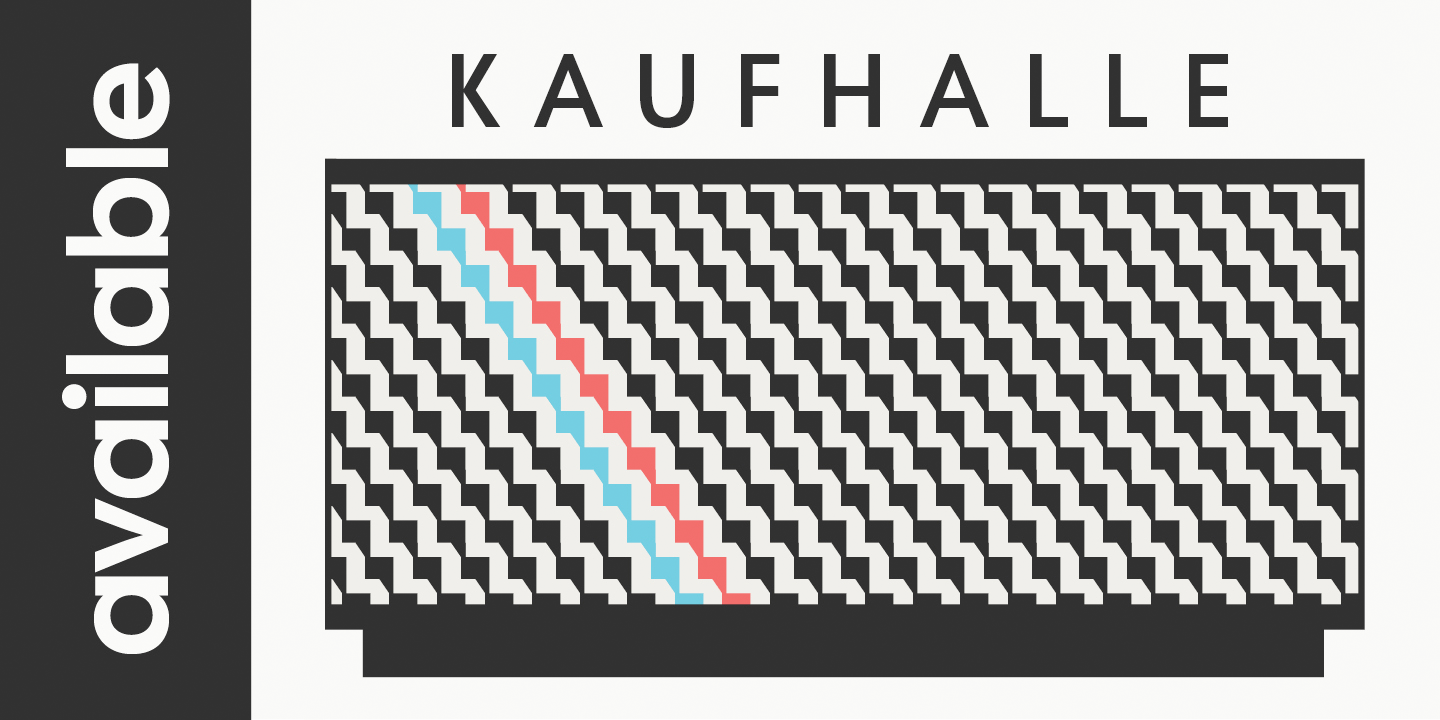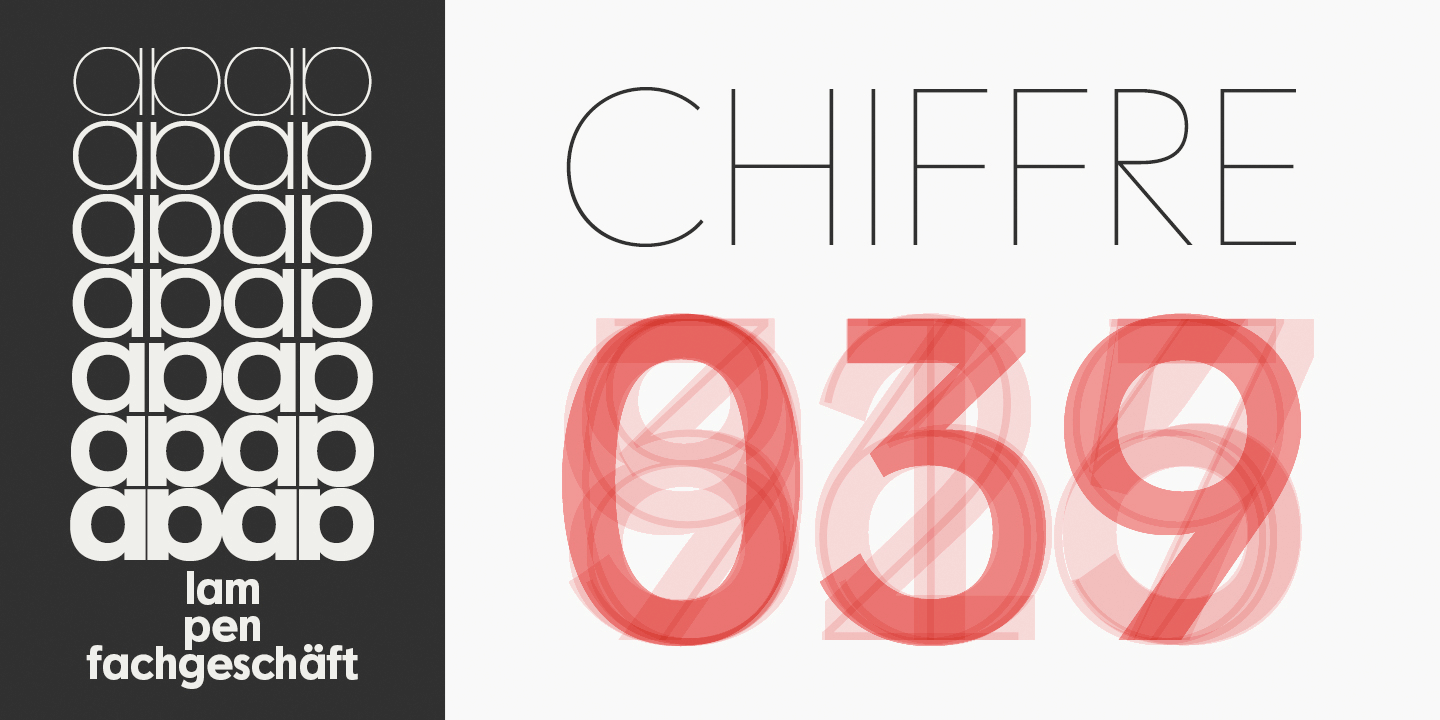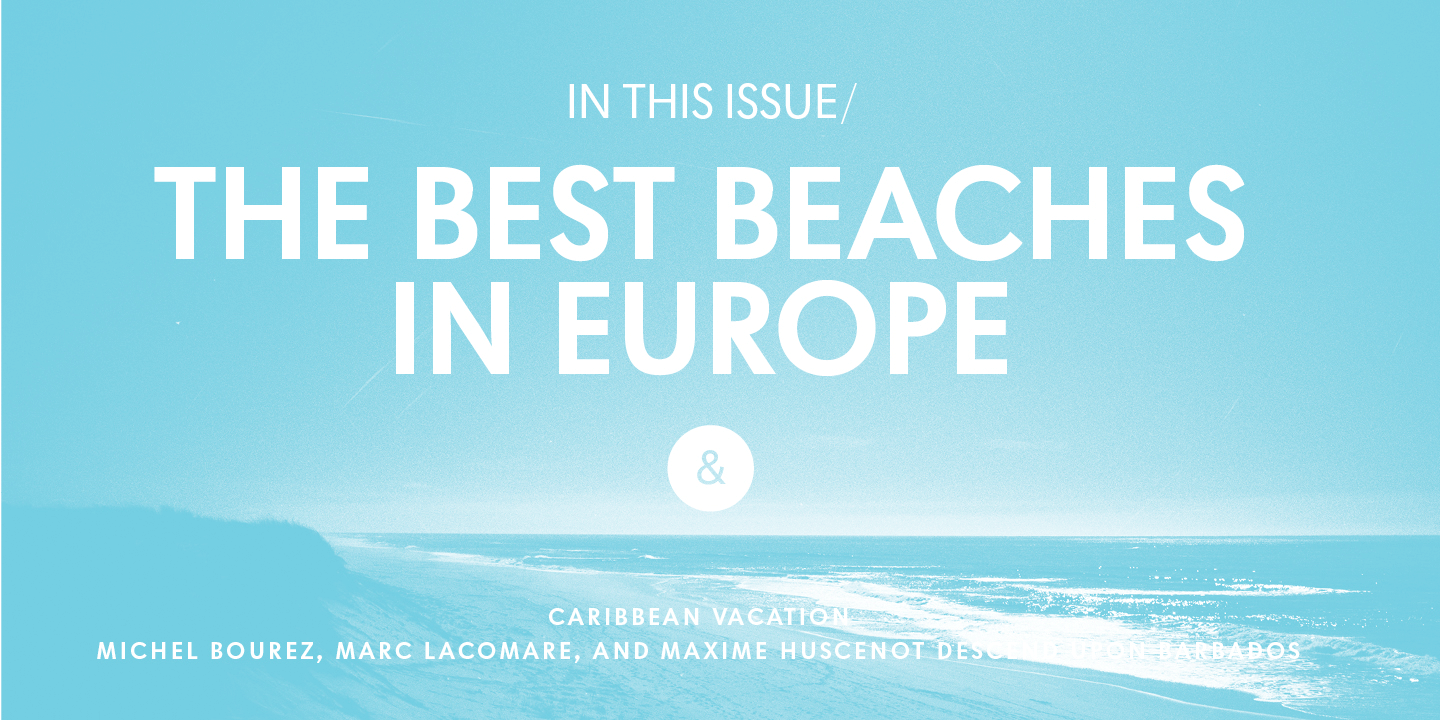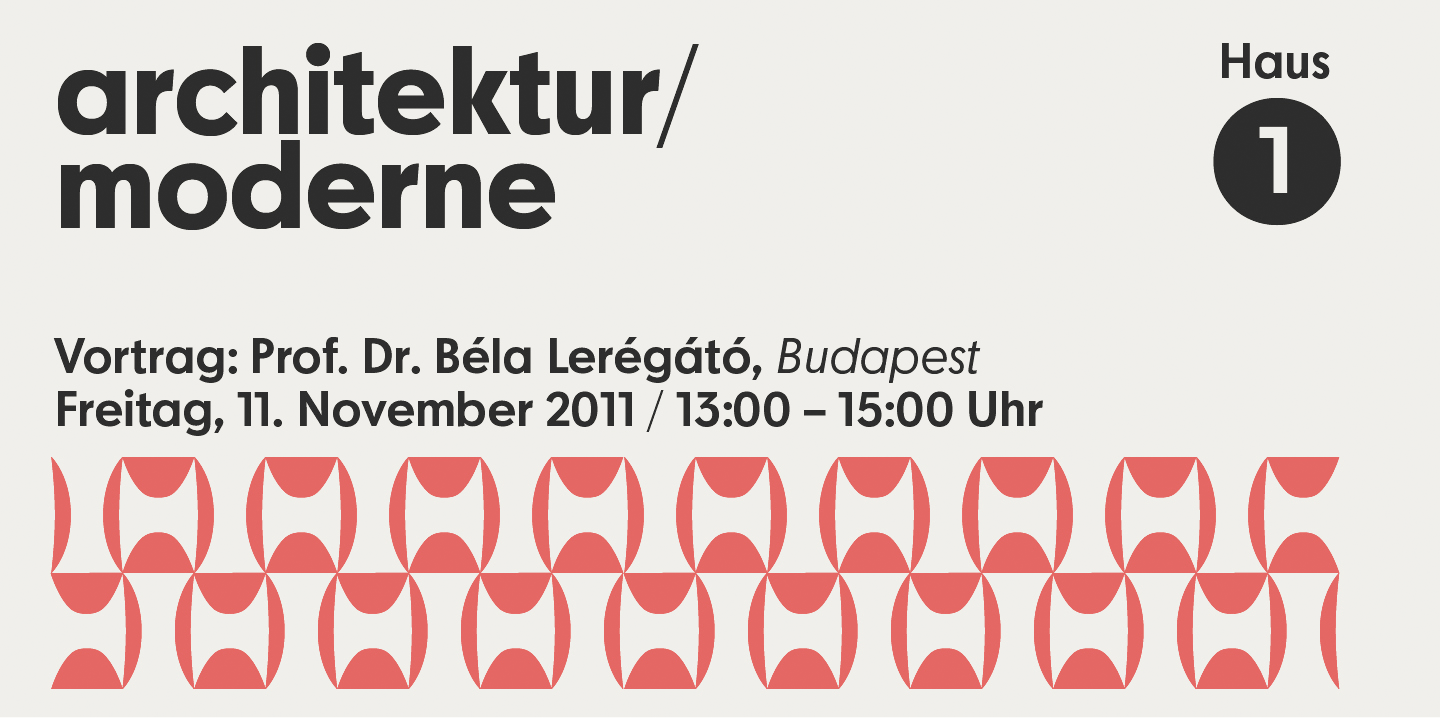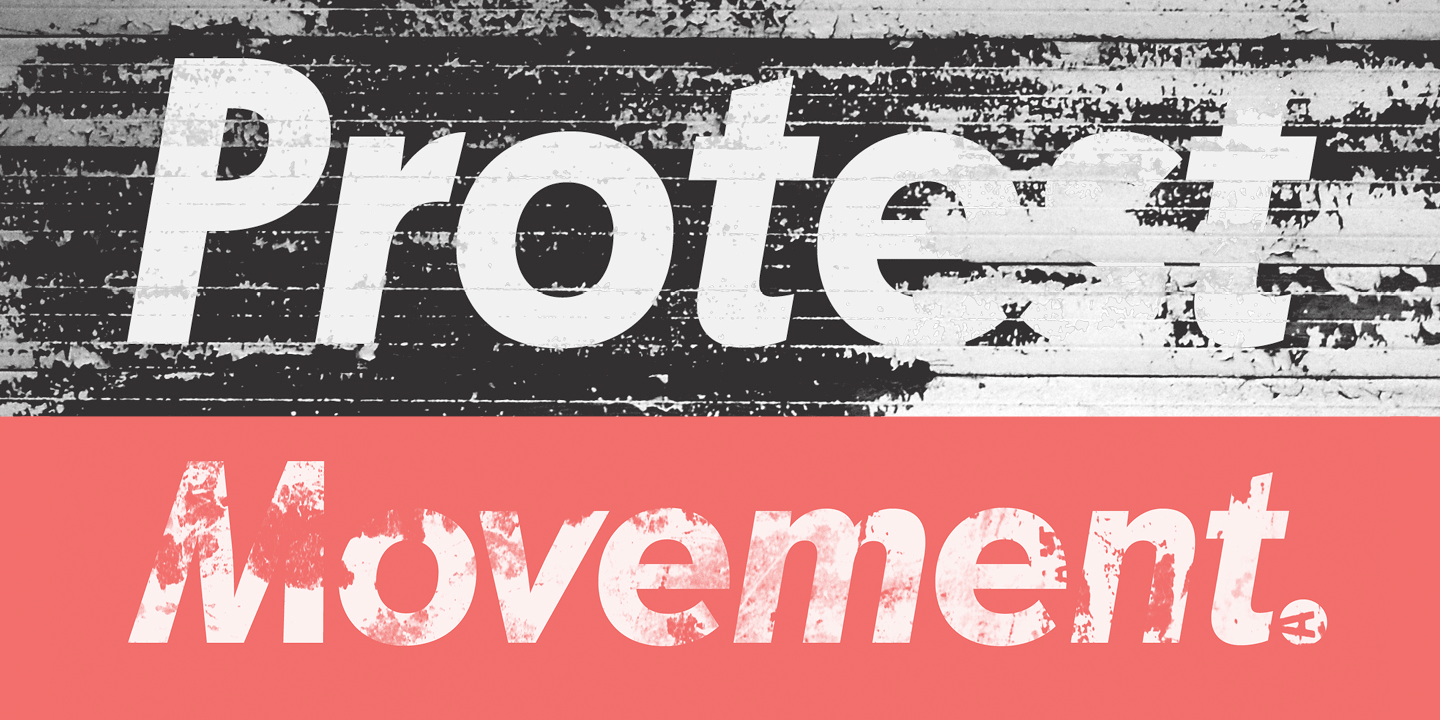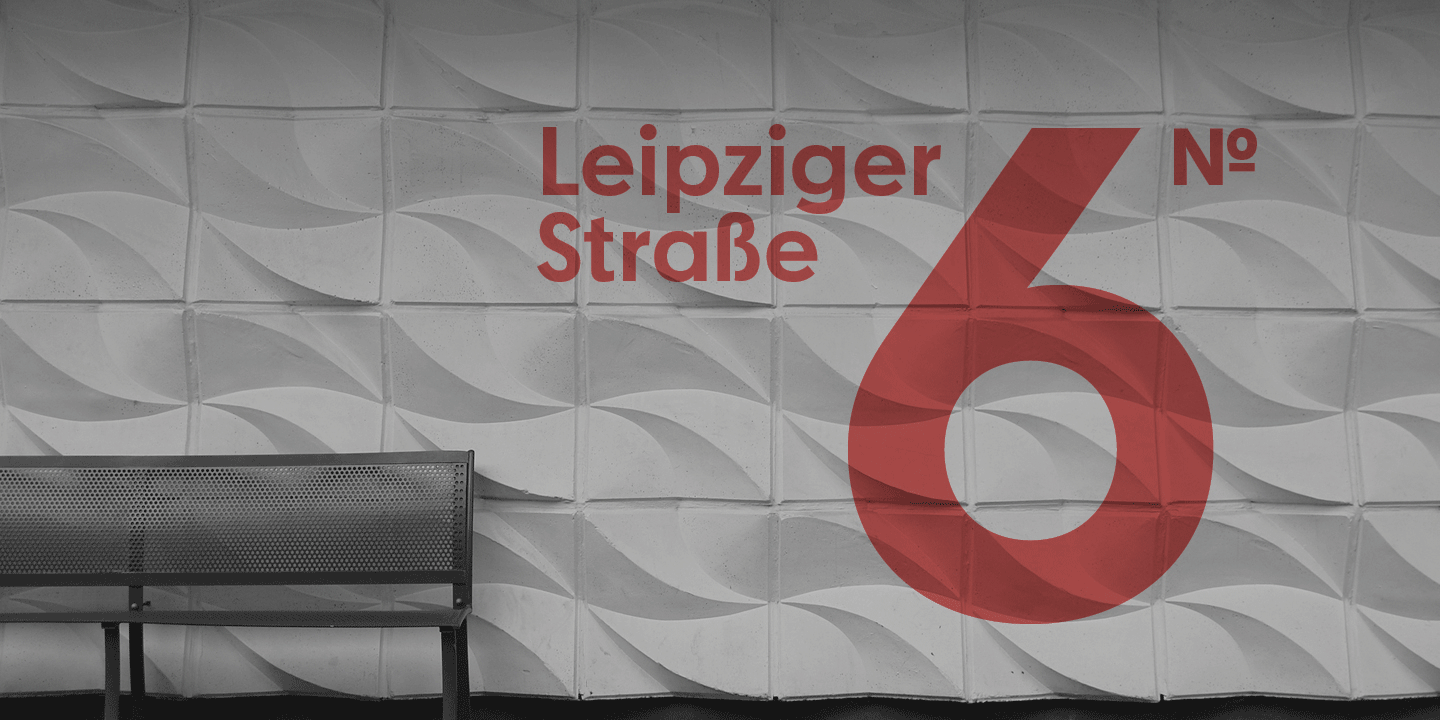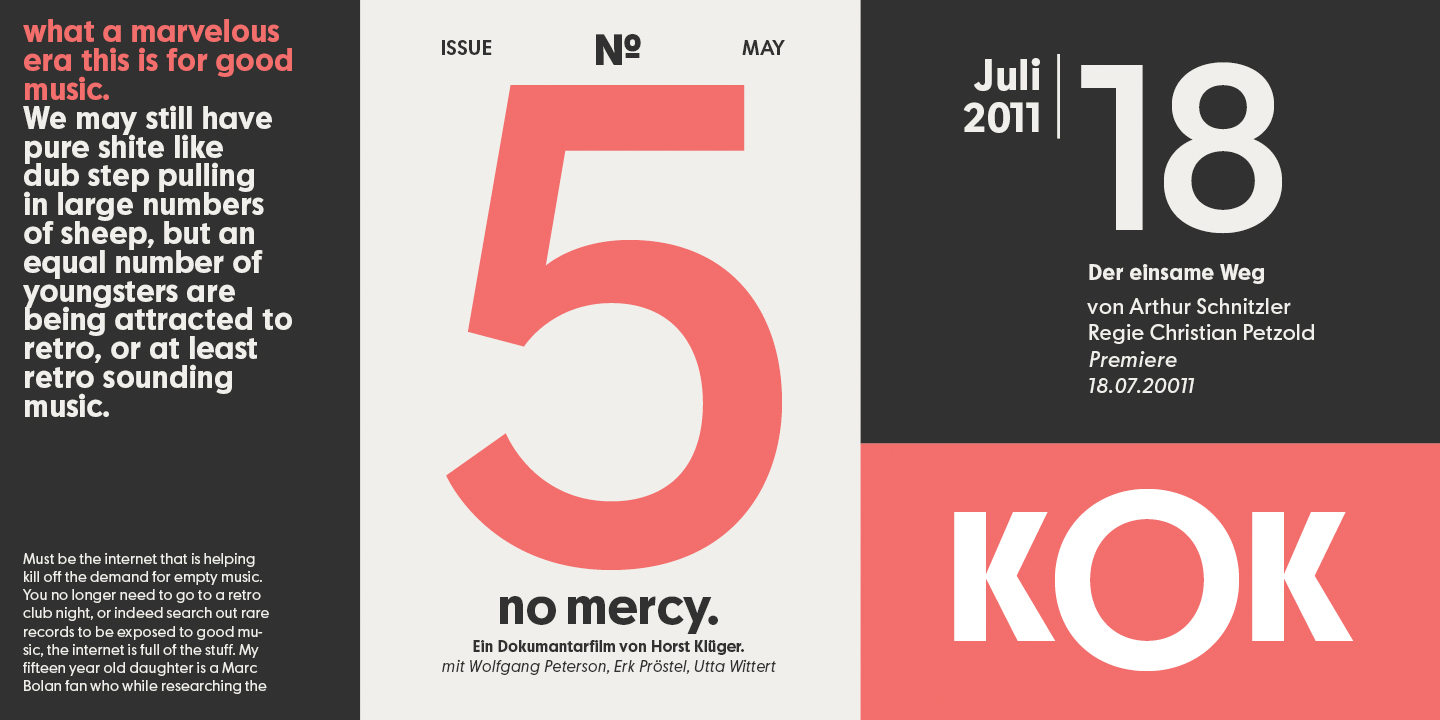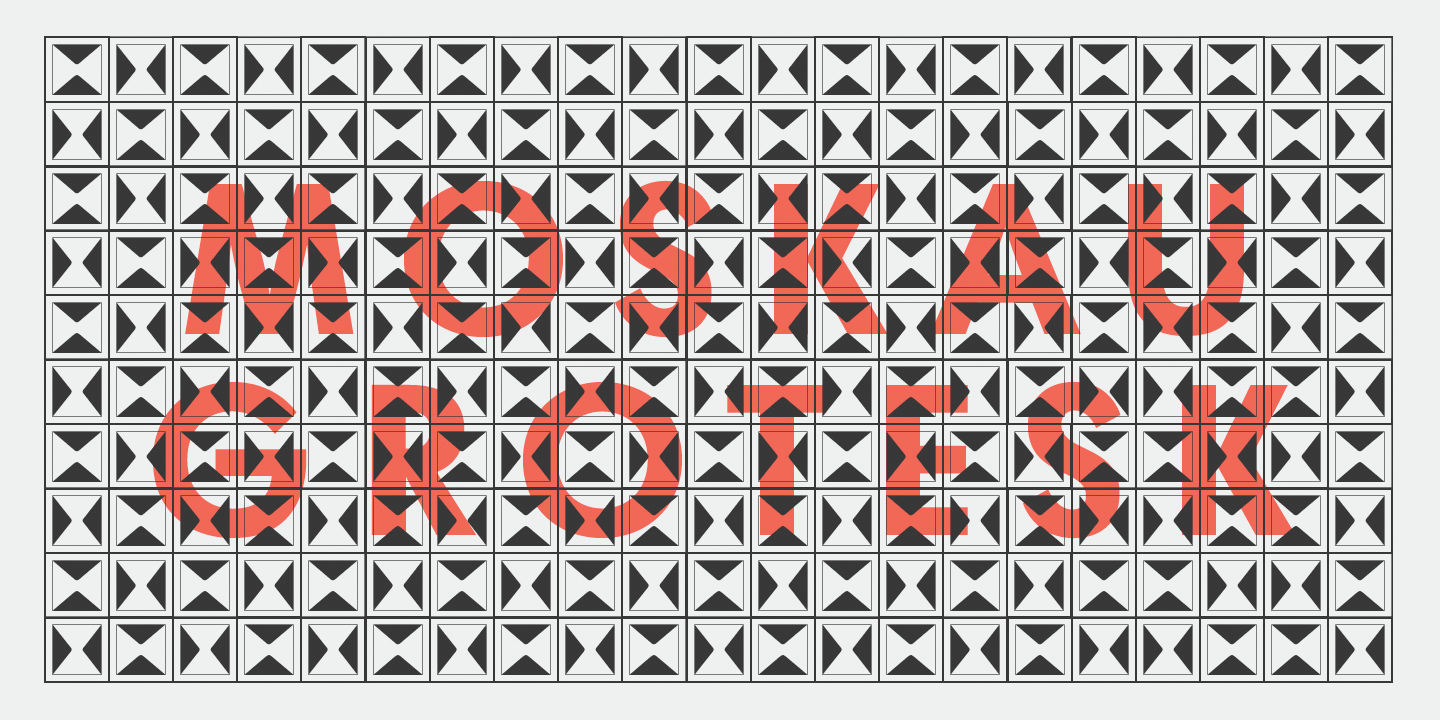
The design of the typeface Moskau Grotesk is based on the signage created for the Café Moskau in Berlin by the graphic artist Klaus Wittkugel in the beginning of the 1960s. The Café Moskau, across from the Kino International on Karl-Marx-Allee in Berlin Mitte was one of the prestige edifices of the former DDR (German Democratic Republic). Built in the early 1960s, it advanced over the years and changing social developments to a trademark building of the capital. The lettering display on the roof was created by the graphic artist Klaus Wittkugel (October 17, 1910 – September 19, 1985). He had been Professor at the School for Applied Arts in Berlin, and, in addition to the creation of many posters, book covers and postage stamps, he was responsible for the signage of the Kino International as well as for the complete graphic treatment for the Palace of the Republik. The signage for the Café Moskau with the words »RESTAURANT«, »CAFÉ«, »KONZERT« and »MOCKBA« set in capital letters, becomes the basis for the Moskau Grotesk which was developed by Björn Gogalla in 2013. This face should not be seen as an imitation. A few shortcomings were »fixed«. In favor of maintaining the core characteristics some unique features were, however, not relinquished. Lower case letters and the missing capital letters were designed from scratch. It is not surprising that the plain, unassuming geometrical direction of the basic character style forms a bridge to the architecture of the 1960s. Inspired by the then favored, diverse possibilities inherent in the architectural example and wall reliefs, two complementary pattern fonts emerged.